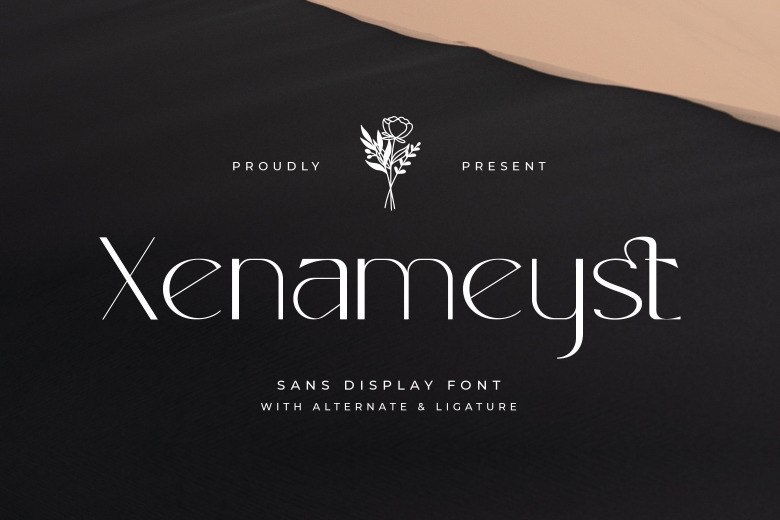
Xenameyst Font
Xenameyst is a modern sans-serif display font. Whatever the topic, this font will certainly prove to be an amazing addition to your fonts’ library as it has the power to make every creation stand out. It’s ideal for branding projects, Logo design, Clothing Branding, product packaging, magazine headers, and as a text overlay on background images.
Xenameyst Sans Serif Font